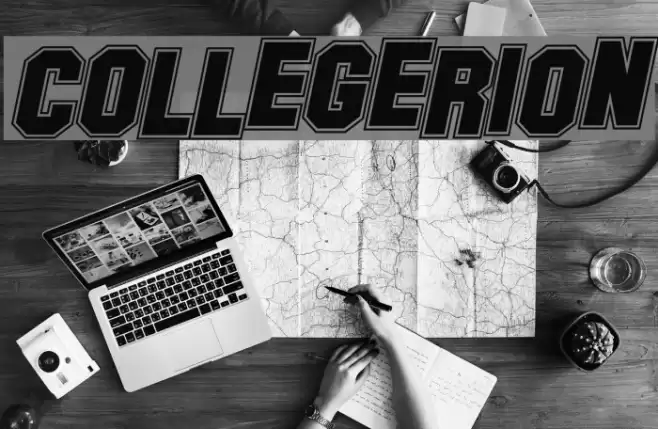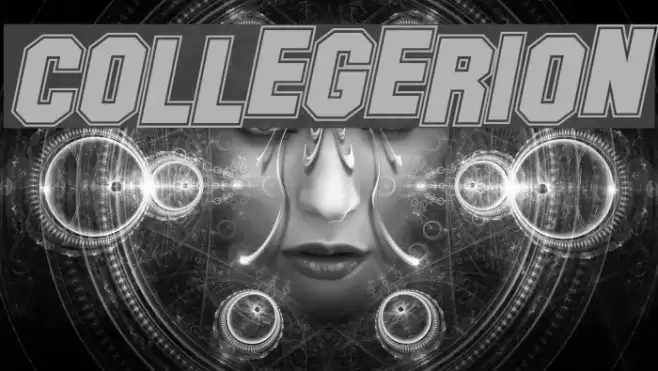
Collegerion Font
Collegerion Description
This bold and dynamic font features a strong, angular design with a distinct outline that gives each character a three-dimensional effect. The uppercase letters are particularly striking, with sharp edges and a slightly condensed form that conveys a sense of power and movement. The lowercase letters maintain the same boldness, ensuring consistency across different text cases. Numbers and special characters are equally robust, making them suitable for impactful displays. The font's style is reminiscent of collegiate or sports themes, ideal for projects that require a bold and energetic typeface.
A bold, angular font with a three-dimensional outline, perfect for dynamic and impactful designs from Uncategorized fonts.
- Proposed Projects: Ideal for sports team branding, collegiate merchandise, event posters, and dynamic advertising campaigns.